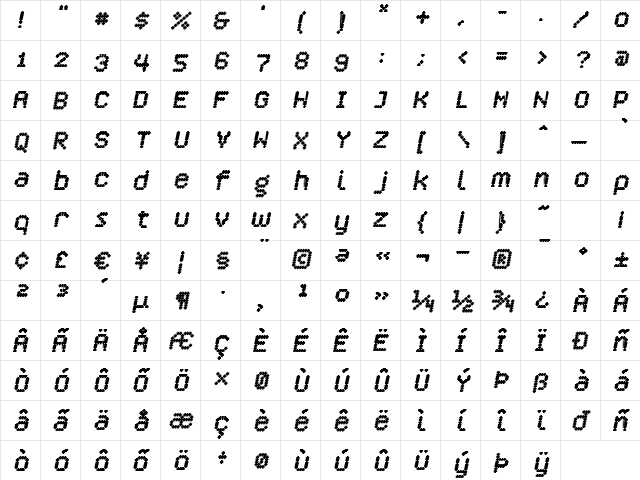
Crossover ExtraBoldOblique
| Foundry | YouWorkForThem |
| Designer | Michael Cina |
Design Context for Crossover Typeface
Crossover takes a measured approach to typography — its balanced proportions and neutral character make it a reliable workhorse for both digital and print work. The slanted form adds forward momentum and visual energy. The heavy weight commands attention and anchors typographic hierarchies.